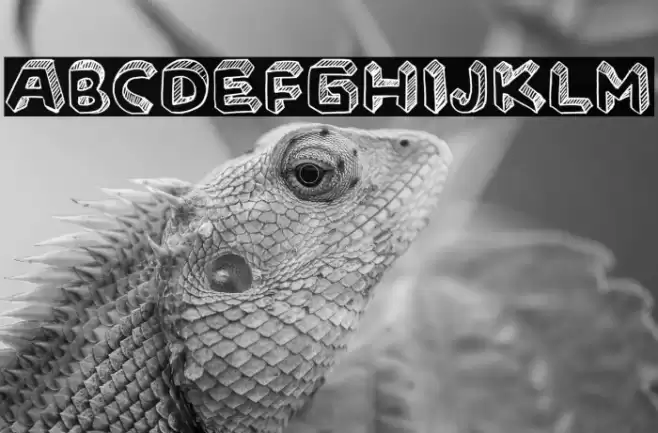
UNICORN SCHOOL Font
UNICORN SCHOOL Description
This playful and whimsical font features a hand-drawn, sketch-like style with a three-dimensional effect. Each character is outlined with a bold, irregular line, giving it a dynamic and lively appearance. The letters are filled with diagonal hatching, adding texture and depth. The overall design is reminiscent of doodles or comic book art, making it ideal for creative and informal projects. The uppercase and lowercase letters maintain a consistent style, while the numbers and special characters complement the alphabet with the same energetic flair. This font exudes a sense of fun and creativity, perfect for capturing attention and adding a unique touch to any design.
A playful, hand-drawn font with a sketch-like, three-dimensional effect from Cartoon fonts.
- Font: UNICORN SCHOOL
- Proposed Projects: Ideal for children's books, comic strips, playful branding, and creative posters.